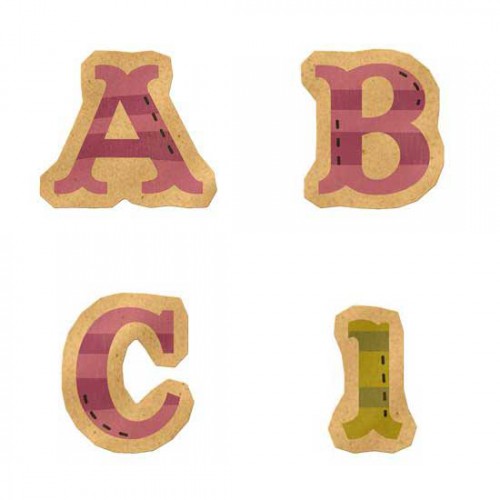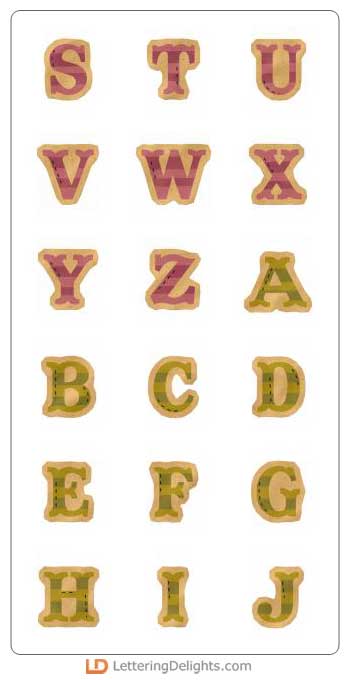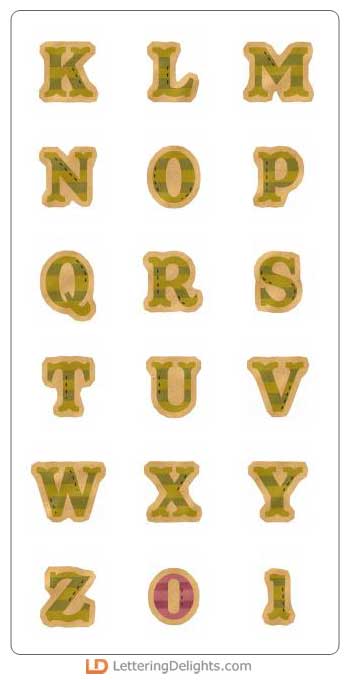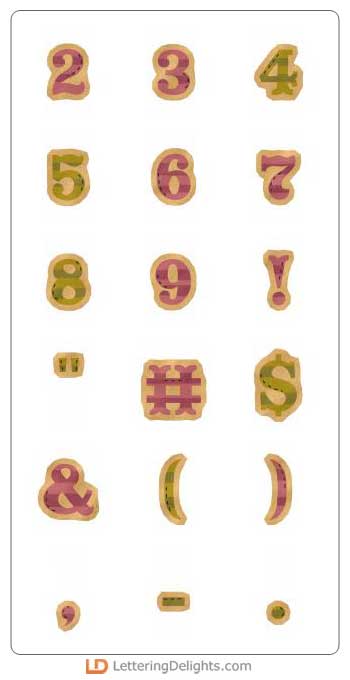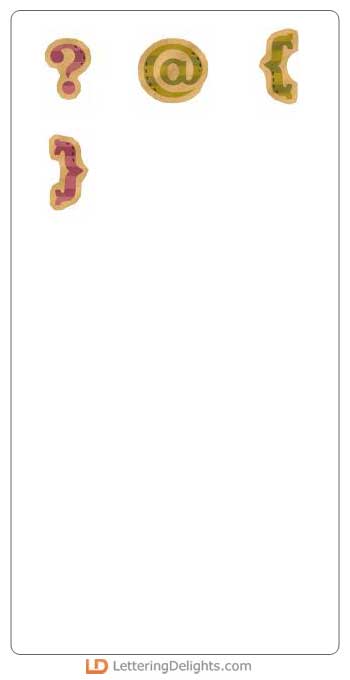
Who knew the description of Spooktacular is being a little aged, layered, distressed and stitched-together? Well, for this alphabet it's true, at least. The Spooktacular Alphabet is a great way to express yourself...and not just at this Halloween time of year. It's spooky how many of your creations this colorful alphabet will compliment!